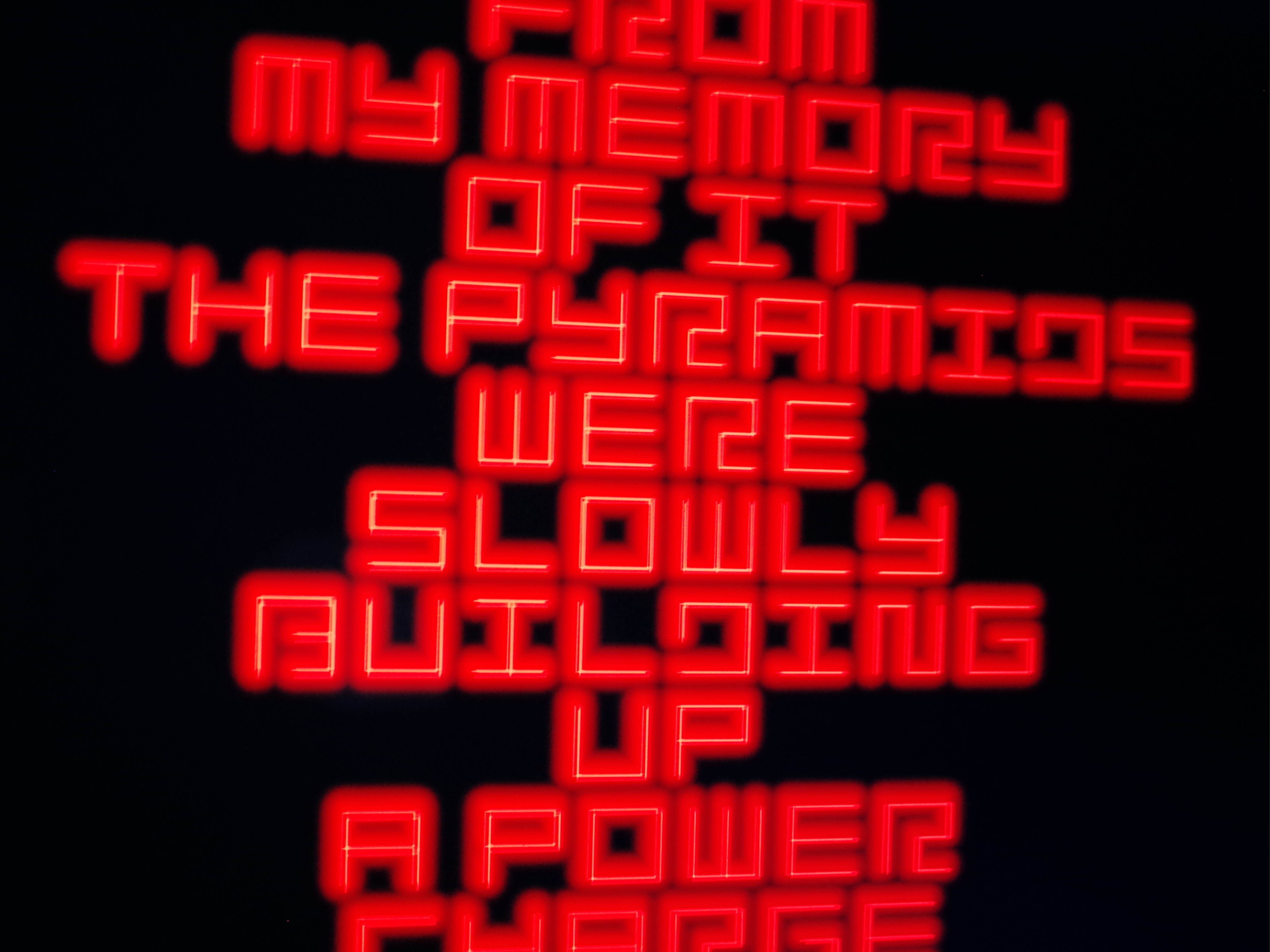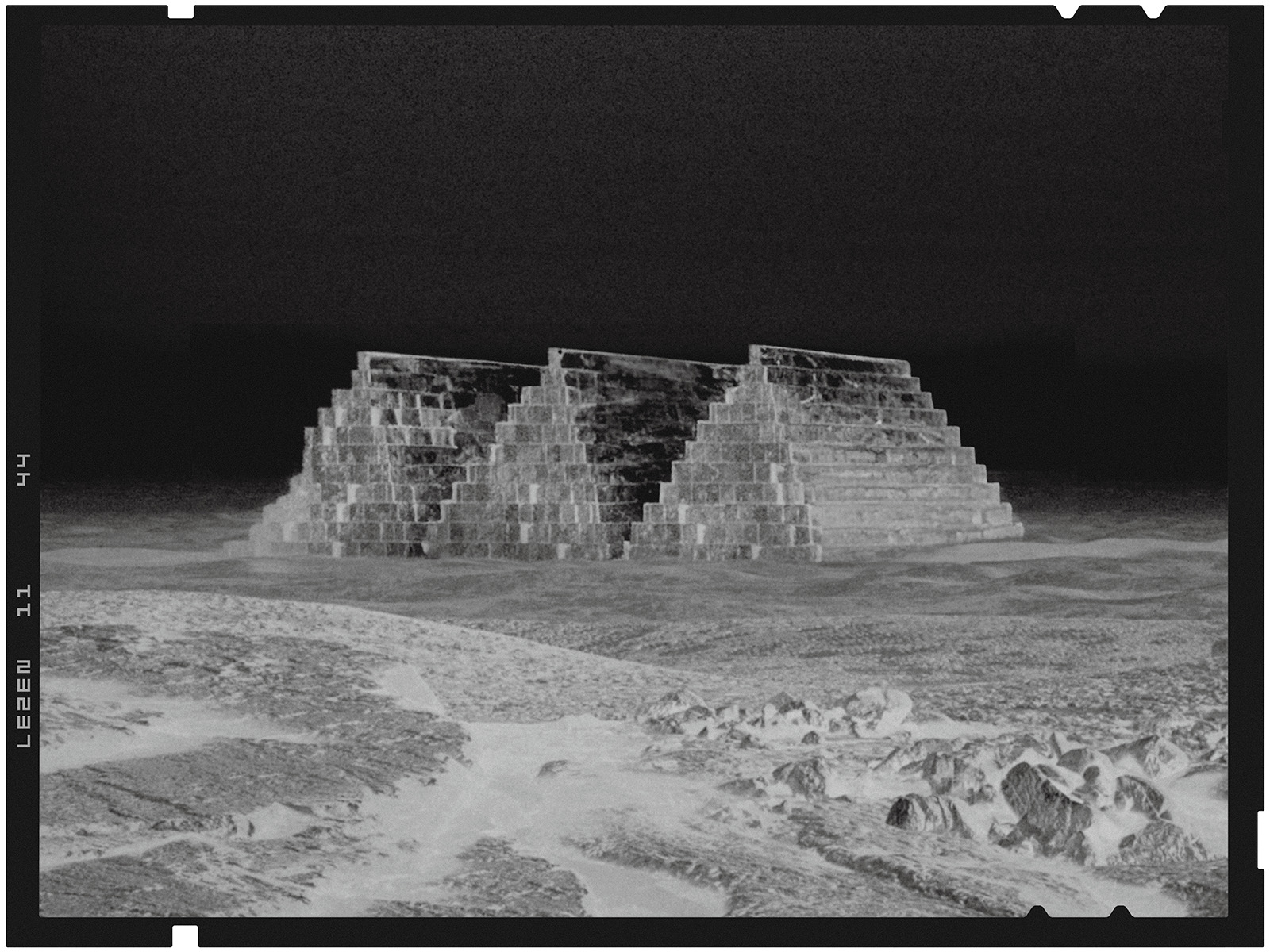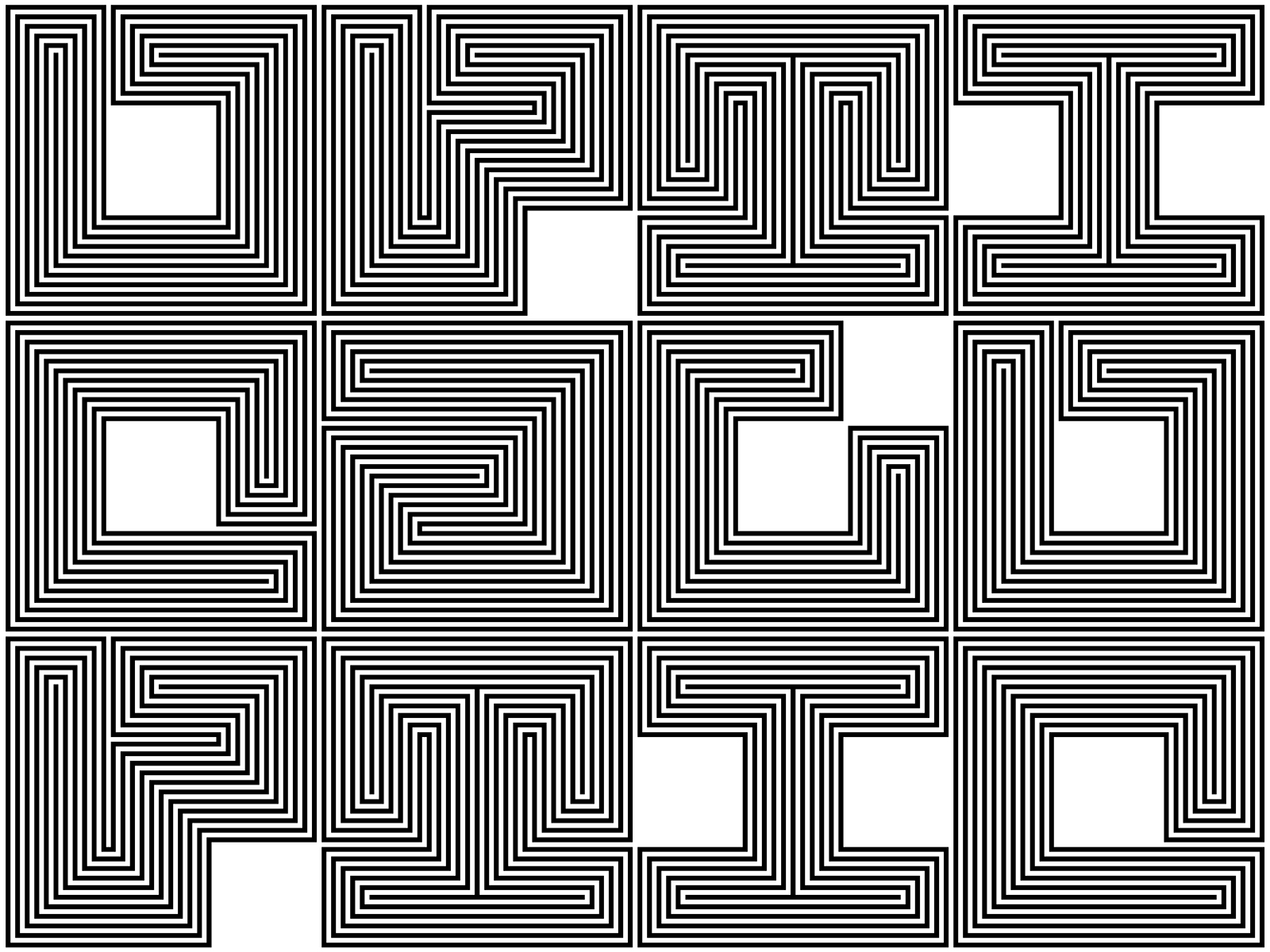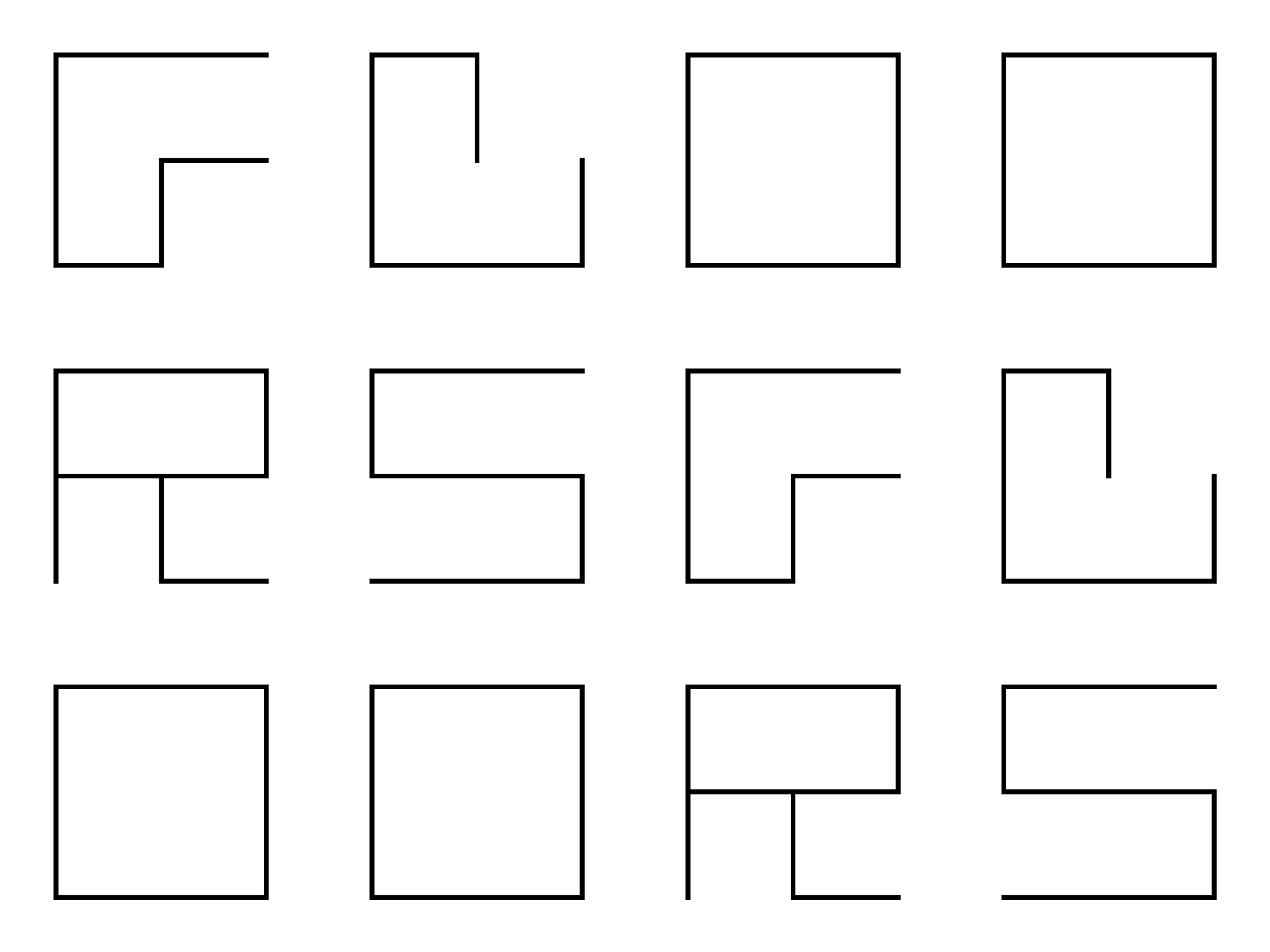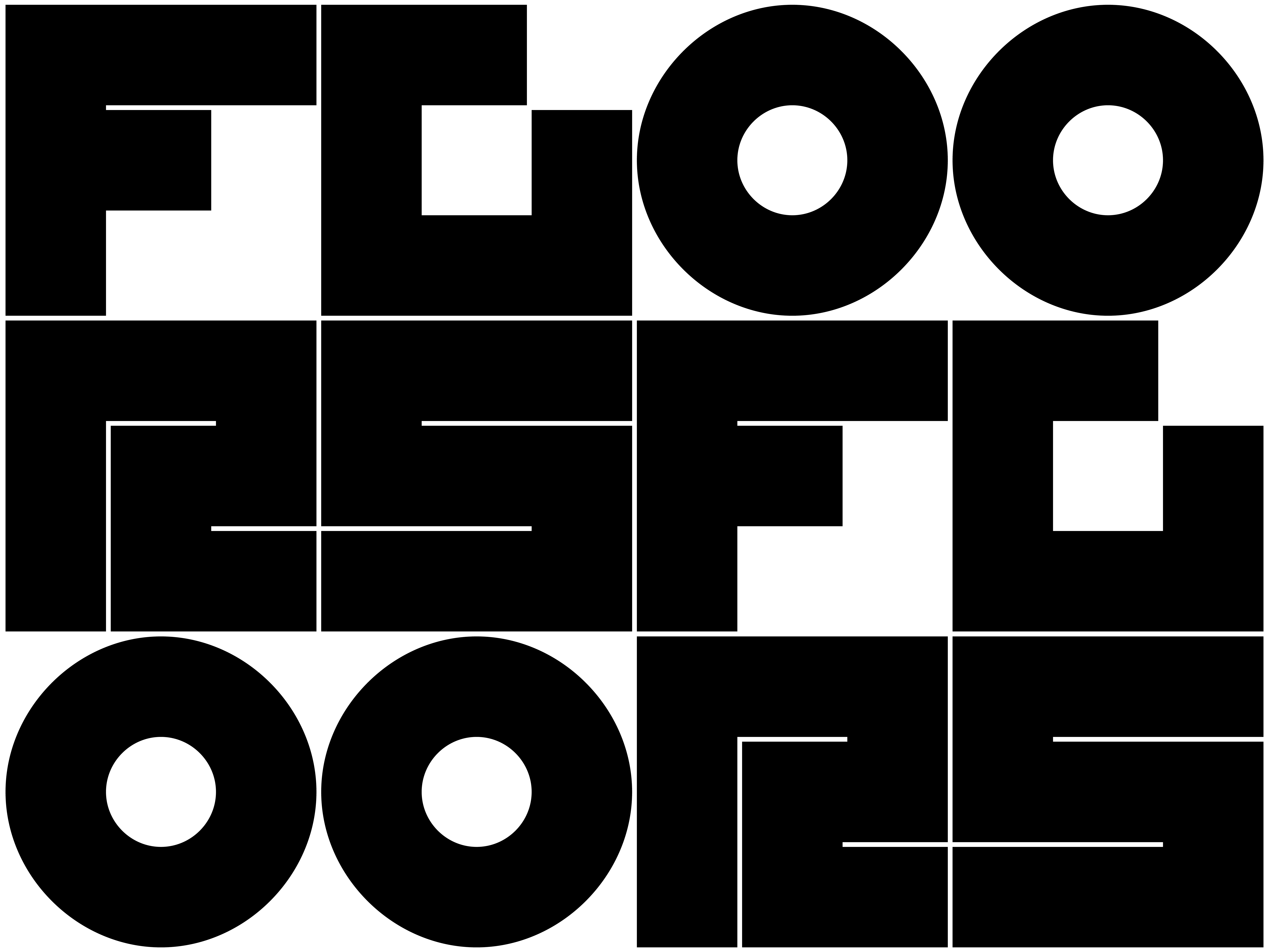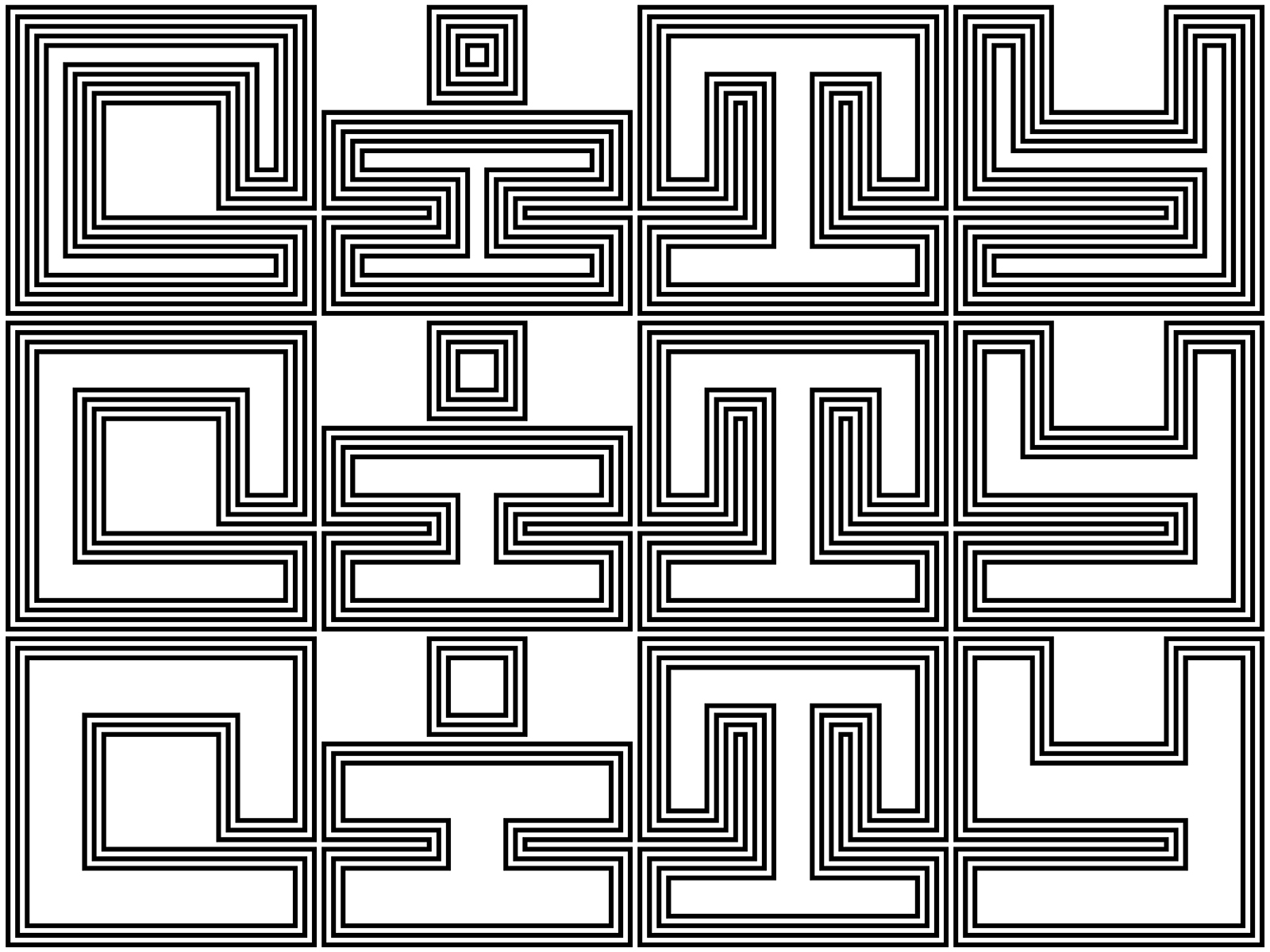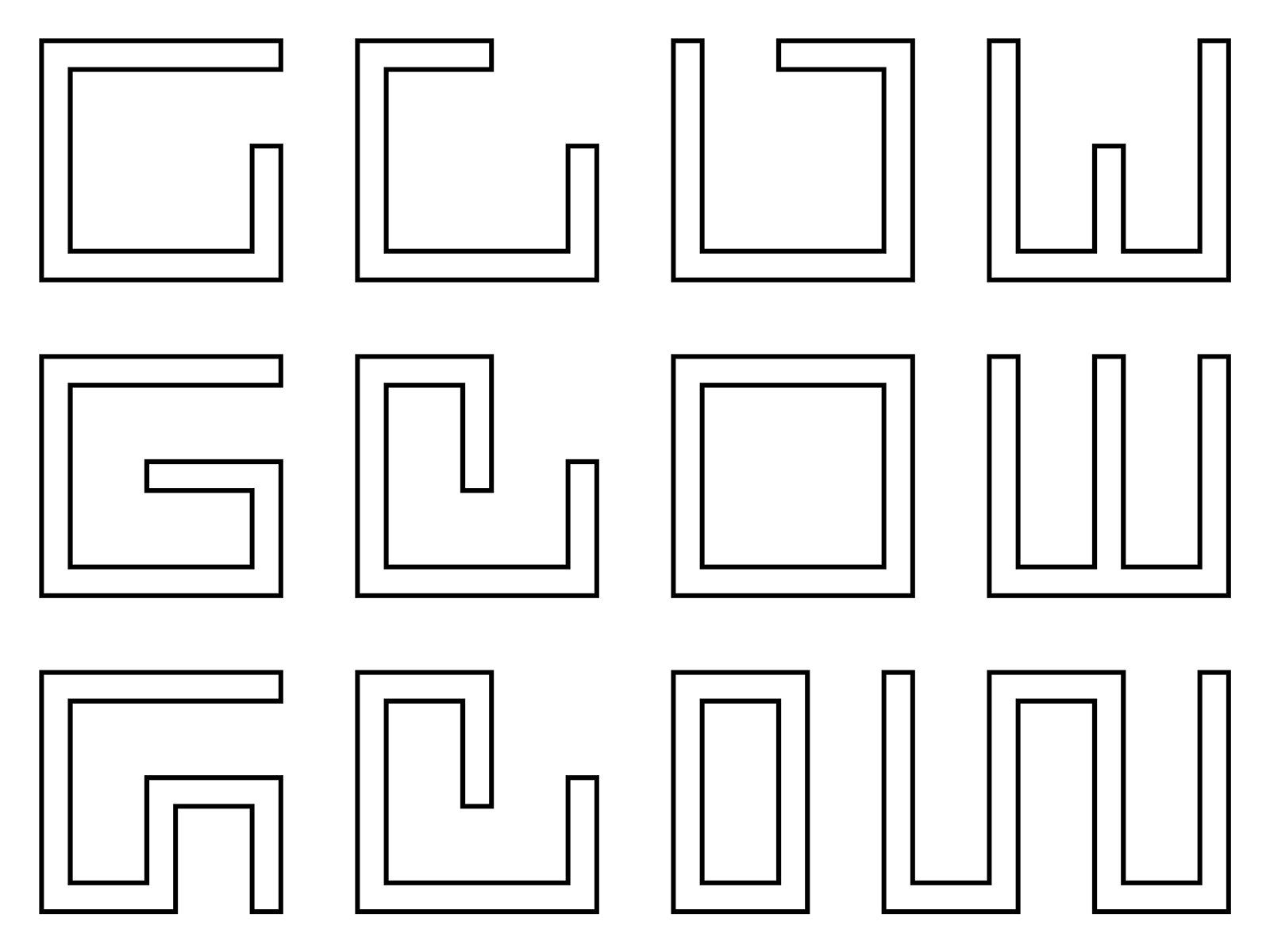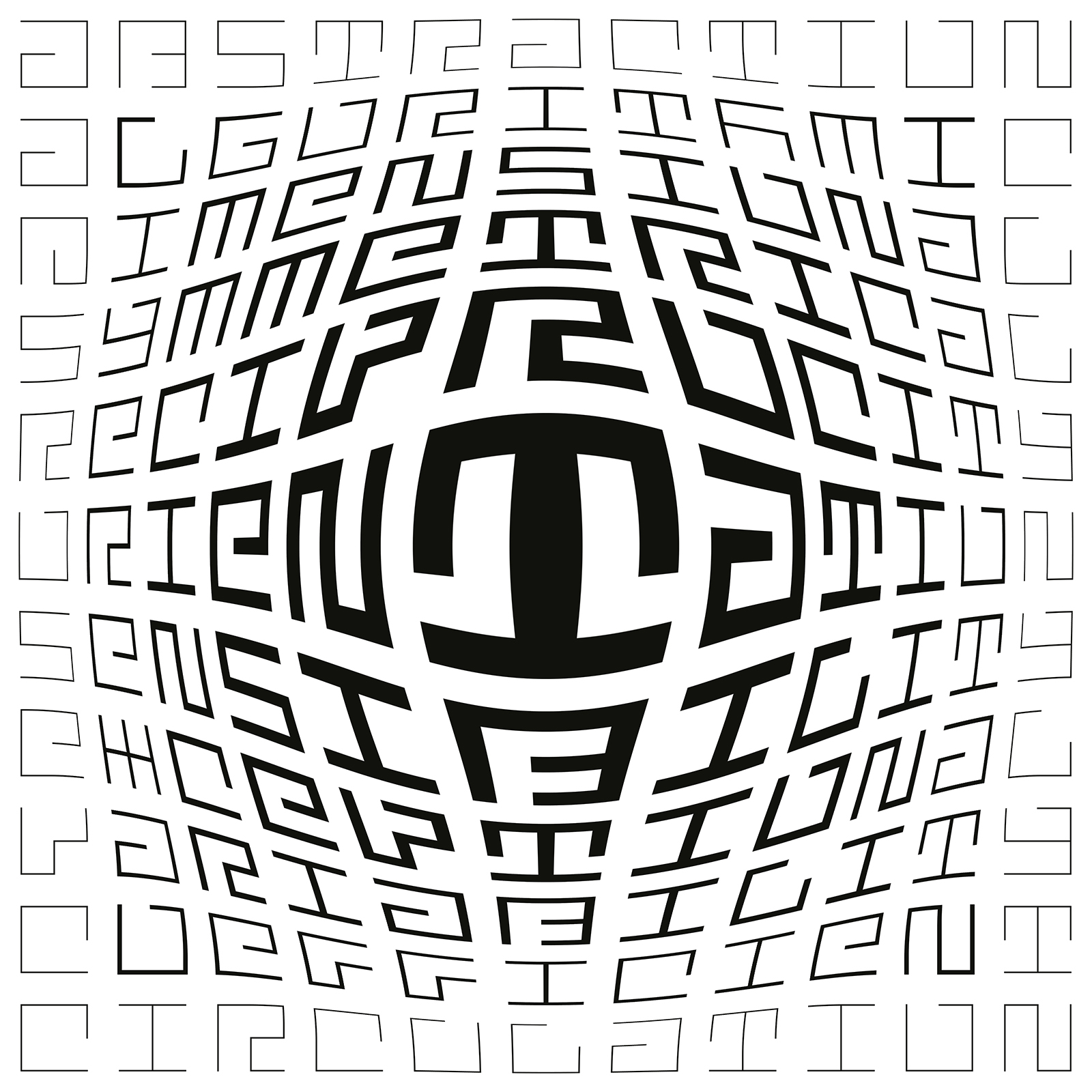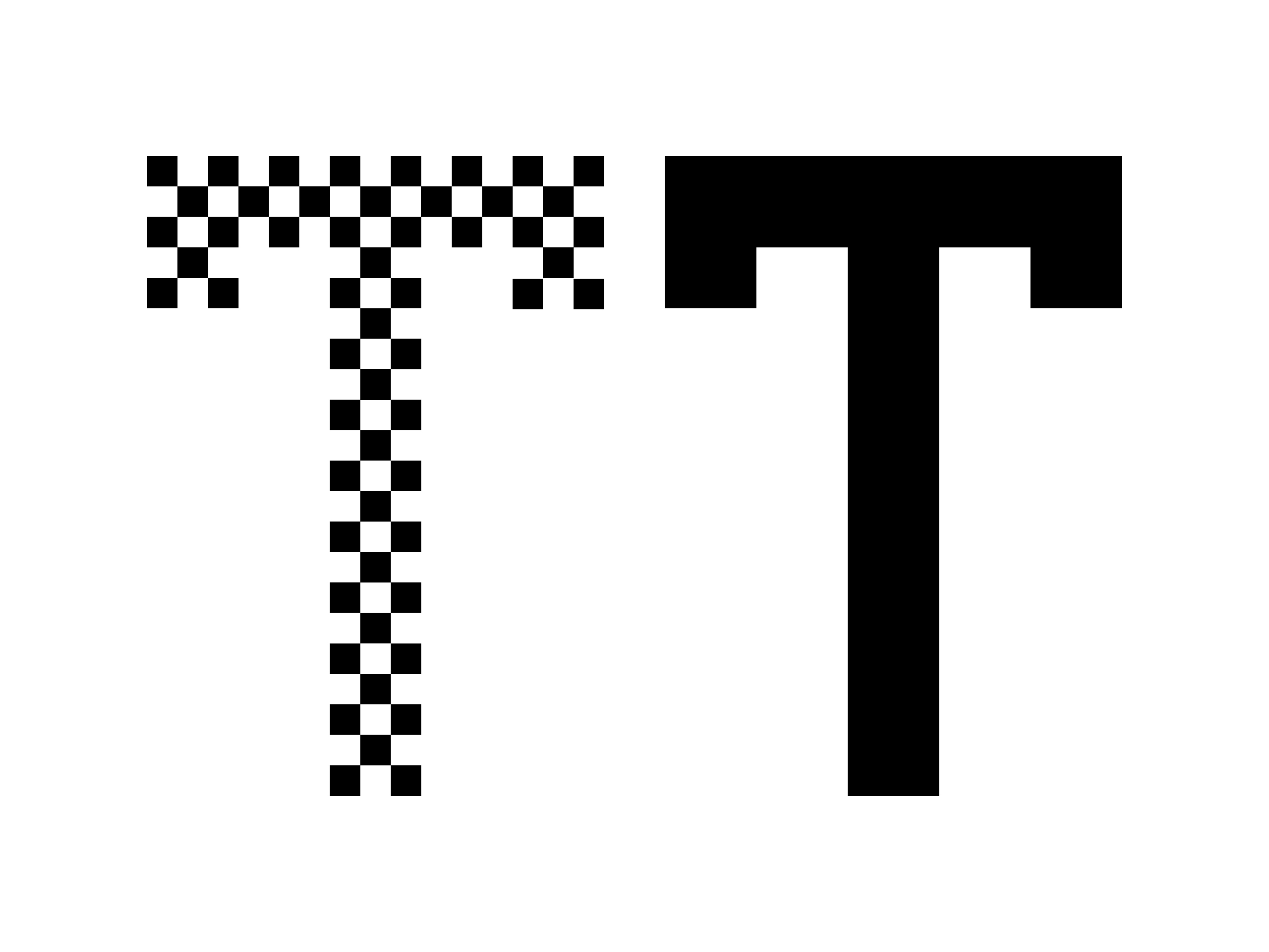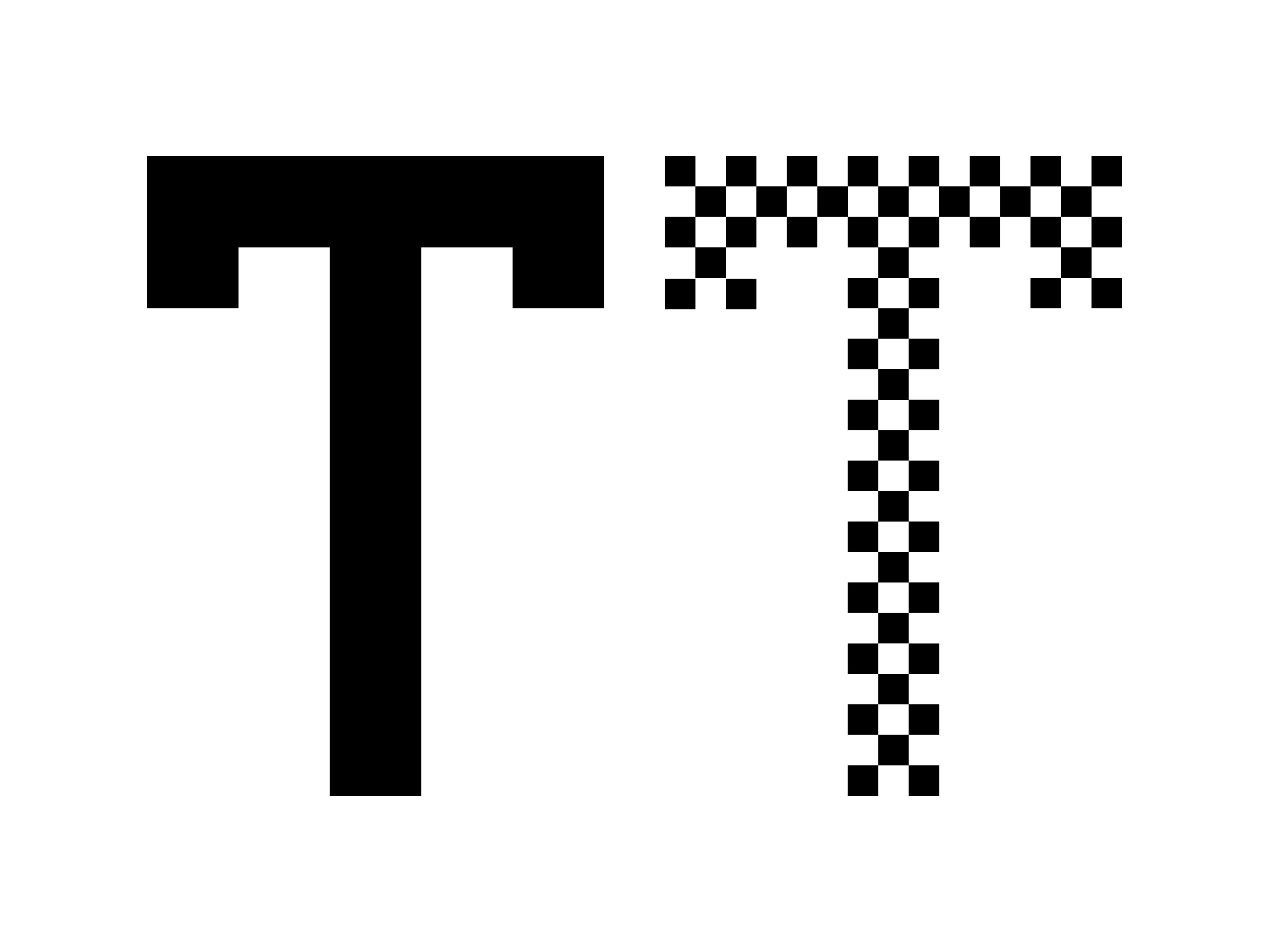
About LEZEN
The Lezen family is grounded in the work of graphic and type designer Jurriaan Schrofer (1926–1990). A contemporary of Wim Crouwel (1929–2019), the designer of New Alphabet, Schrofer regarded text as a truly malleable and sculptural material. Developed through an extensive exploration of typographic variation, Lezen stands as a direct tribute to one of Schrofer’s works, published in 1971: Wie dit leest is gek (“Whoever reads this is crazy”).
The family comprises four main stylistic sets—Floor, City, Glow, and Optical—which alter the typeface’s appearance and the sophistication of its geometric forms. Each set contains 44 styles, with over 400 glyphs per style, including numerous letter alternates. This abundant multiplicity enables almost infinite possibilities for composition and experimentation, suited to a wide range of titling scales. By playing with outlines and weights, mixing and confronting them, and applying color, it becomes possible to freely explore the broad territory between legibility and architectural complexity. Moreover, Lezen lends itself ideally to 3D translations, in the spirit of Jurriaan Schrofer’s free and multidimensional approach.